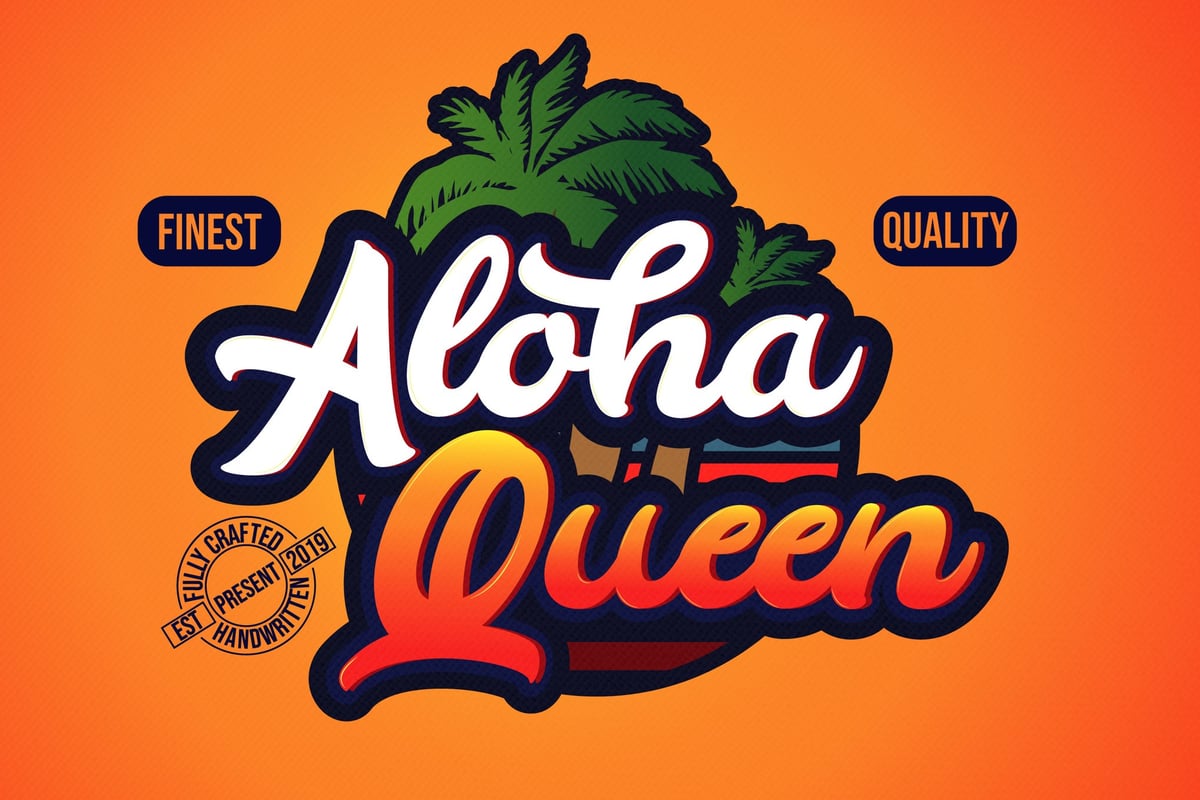
Aloha - Casual Bold Typeface
Bold, beautiful, and endlessly versatile — Aloha is the casual script font your designs have been waiting for.
Aloha is a casual bold typeface crafted in a flowing calligraphy style. It's a natural fit for invitations, greeting cards, branding materials, business cards, quotes, posters, and much more.
Packed with OpenType features, this font gives designers full creative control through a rich set of alternate characters:
- Stylistic Sets
- Stylistic Alternates
- Contextual Alternates
- Swash Characters
- Ligatures
- Alternates and Ligatures
- PUA Encoded Characters — fully accessible out of the box
- Multilingual support